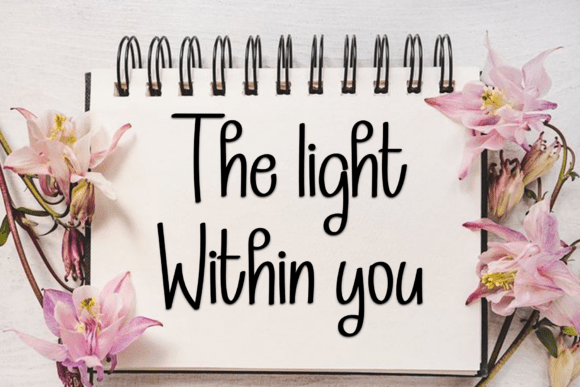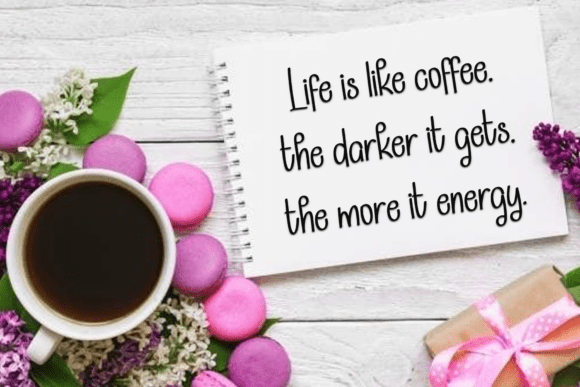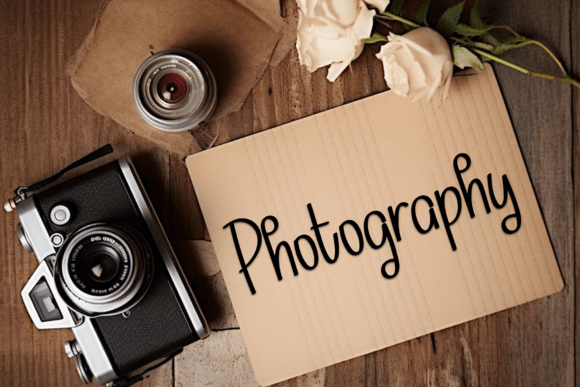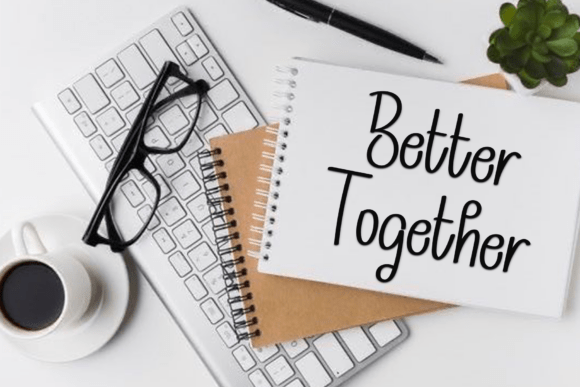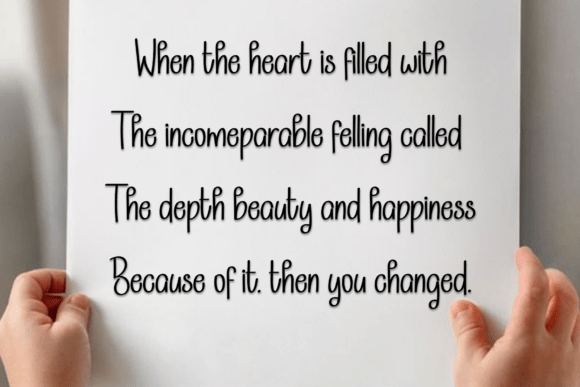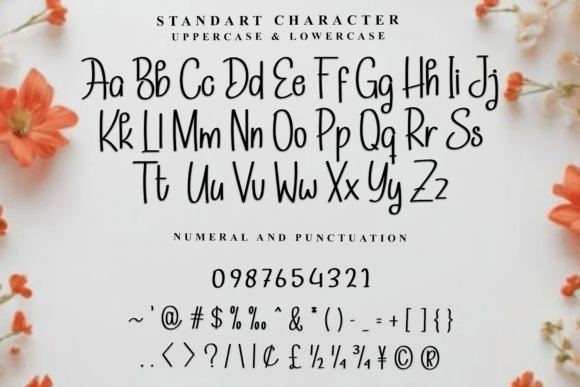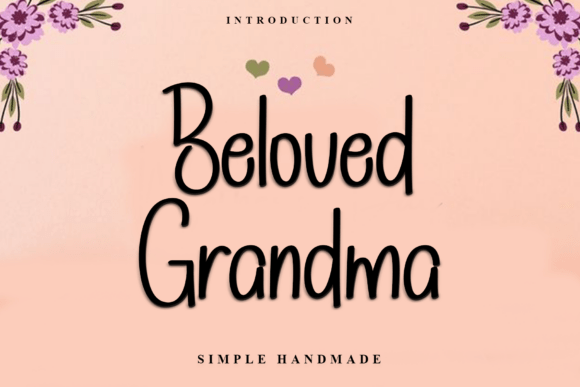
The Grandma Font That Stole My Heart: A Deep Dive into Beloved Grandma
I still remember the design project that led me to discover the Beloved Grandma font. I was working on a craft project for a client who wanted a custom logo with a warm, nostalgic feel. I had spent hours scouring font libraries, but nothing seemed quite right. That was when I stumbled upon Beloved Grandma, and it instantly became the perfect fit. In this article, I’ll share my experience with this beautiful font, its features, and how to make the most of it in your designs.
First Impressions: What I Love About Beloved Grandma
Here’s what makes Beloved Grandma a standout font:
- ✨ Unique and eye-catching: The soft, distinctive strokes give it a special character that sets it apart from more common fonts.
- ✅ Versatile: Its natural, flowing style makes it suitable for a wide range of design projects, from crafts to professional branding.
- 🌈 Variety of characters: The font comes with a range of characters, ensuring you have plenty of options for creative expression.
While Beloved Grandma is an excellent font, there are a few things to keep in mind:
- 🤔 Glyph limitations: Some users might find the glyph selection a bit limited for very specific design needs.
- ⚠️ OpenType feature support: Depending on the software you’re using, you might not have access to all OpenType features.
The Story Behind Beloved Grandma: A Designer’s Inspiration
While the true origins of Beloved Grandma might be shrouded in mystery, it’s easy to imagine a designer inspired by the warmth and love of family. Perhaps a grandchild’s scribbles or a grandmother’s letters sparked the creation of this font, imbuing it with a sense of nostalgia and care. Whatever its origins, Beloved Grandma captures a special kind of warmth that’s hard to find in digital fonts.
| Is Beloved Grandma suitable for professional branding? | Yes, its unique yet legible style makes it suitable for a variety of professional uses. |
| Does Beloved Grandma support OpenType features? | Yes, Beloved Grandma comes with OpenType features, including stylistic alternates and glyphs, which can enhance your designs. |
In conclusion, Beloved Grandma is more than just a font — it’s a way to add warmth, personality, and a touch of nostalgia to your designs. Whether you’re a designer, crafter, or hobbyist, this beautiful font has the potential to elevate your projects and make them stand out.